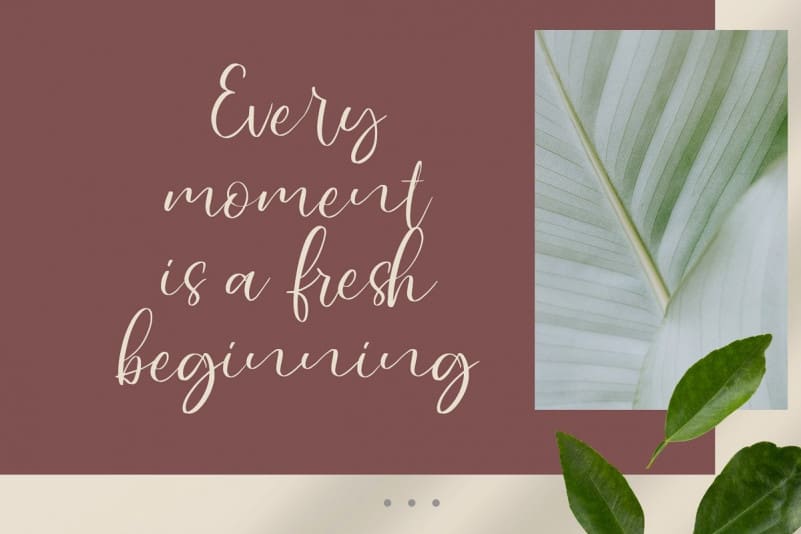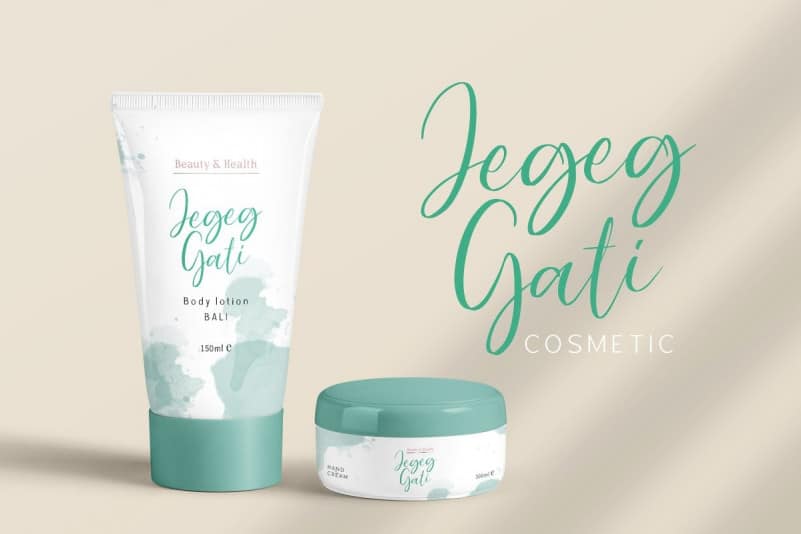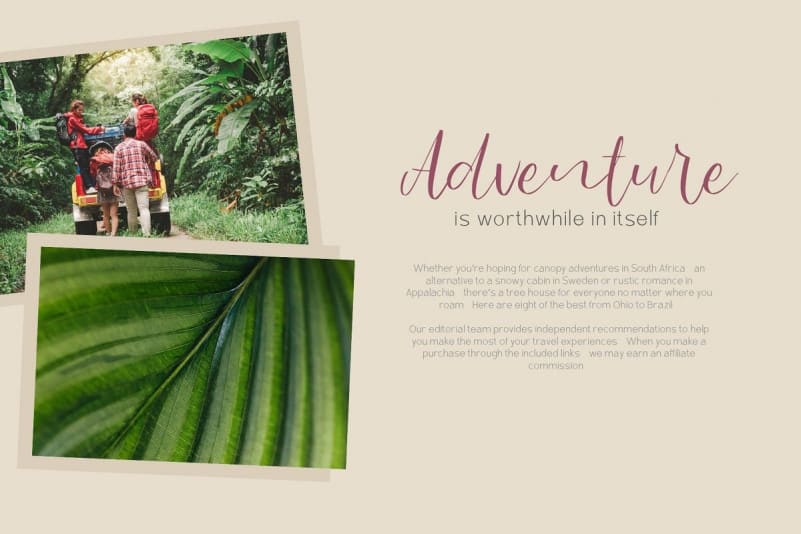
Karmila Calligraphy Font
Karmila Calligraphy Font is a modern look of Script typeface, can make your text appear elegant, luxurious, and modern! Made from font designer named Alit Design. A very beautiful and unique handwritten font that comes with a very natural ligature surprise so it is suitable for your design needs such as printed quotes, invitation cards, social media, product packaging, Web you and more!